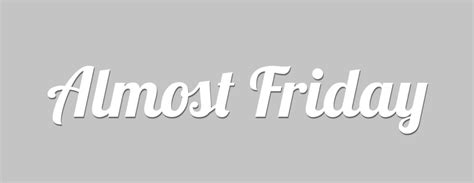
Get Creative with Almost Friday Font on Snapchat – Perfect for TGIF Posts!
Get ready for the weekend with Almost Friday font on Snapchat! This playful and fun font is perfect for your snaps on Fridays and beyond.
It's almost Friday, and you know what that means – it's time to let your hair down and have some fun! And what better way to start the weekend than with a brand new font on Snapchat? Say hello to Almost Friday – the font that's about to take your snaps to the next level!
With its bold and playful design, Almost Friday is the perfect choice for anyone looking to add a touch of excitement and energy to their snaps. Whether you're sharing a funny meme with your friends or documenting your latest adventure, this font is sure to make your snaps stand out from the crowd.
But that's not all – Almost Friday also features a range of fun and creative symbols that you can use to express yourself in new and exciting ways. From smiley faces to hearts and stars, these symbols are the perfect way to add a personal touch to your snaps.
So what are you waiting for? Get ready to say goodbye to the work week and hello to the weekend with Almost Friday on Snapchat – the font that's guaranteed to bring a smile to your face and a spring to your step!
The Almost Friday Font on Snapchat: A Fun Way to Celebrate the Weekend
Snapchat is known for its fun and creative filters, but did you know that they also have a font specifically made for Fridays? The Almost Friday font is a playful and exciting way to celebrate the end of the workweek and get ready for the weekend. In this article, we'll take a closer look at this font and how you can use it to add some extra fun to your Snapchat stories.
What is the Almost Friday Font?
The Almost Friday font is a special font on Snapchat that is only available on Fridays. It features bold, block letters with a casual, handwritten feel. The font is perfect for adding a fun and upbeat vibe to your Snapchat stories, whether you're sharing your weekend plans or just celebrating the end of the workweek.
Ways to Use the Almost Friday Font
The Almost Friday font is a versatile tool that can be used in a variety of ways. Here are just a few ideas:
- Add the Almost Friday filter to a photo or video of your work desk, along with a message like Just a few more hours until the weekend!
- Create a Snapchat story that documents your Friday night activities, adding text in the Almost Friday font to describe each moment.
- Use the Almost Friday font to add some excitement to your weekend plans, whether you're going to a concert, trying a new restaurant, or just relaxing at home.
- Try combining the Almost Friday filter with other Snapchat filters or lenses for even more creative possibilities.
- Don't be afraid to get silly or playful with your messages. The Almost Friday font is all about having fun!
In Conclusion
The Almost Friday font on Snapchat is a fun and playful way to celebrate the end of the workweek and get ready for the weekend. By using this font in your Snapchat stories, you can add an extra layer of excitement and creativity to your content. So why not give it a try this Friday and see how much fun you can have?
Almost Friday Font on Snapchat – A Fun and Creative Choice
If you're looking to add some excitement and energy to your snaps and stories, look no further than the Almost Friday font on Snapchat. This font is one of the hottest and coolest font styles available right now, and it's perfect for Fridays.
A Typeface That's All About Embracing the Weekend Vibes
As the name suggests, Almost Friday font embodies the fun, playful, and carefree spirit of the weekend that lies ahead. It's a typeface that's all about embracing the weekend vibes and letting loose after a long week of work or school.
Customise and Personalise!
What's great about Almost Friday font is that it's customisable, meaning you can make it your own with colours, sizes, emojis, and more! Express your personality and creativity by using this font in unique ways.
Will Snapchat ever make Almost Friday font available for everyday use?
- It is unlikely that Snapchat will make the Almost Friday font available for everyday use, as it is meant to be a special feature for Fridays. However, Snapchat may introduce new fonts and features in the future.
Overall, the Almost Friday font is a fun addition to Snapchat's collection of filters and lenses. While it may not be available for everyday use, users can look forward to using it every Friday to celebrate the end of the week!